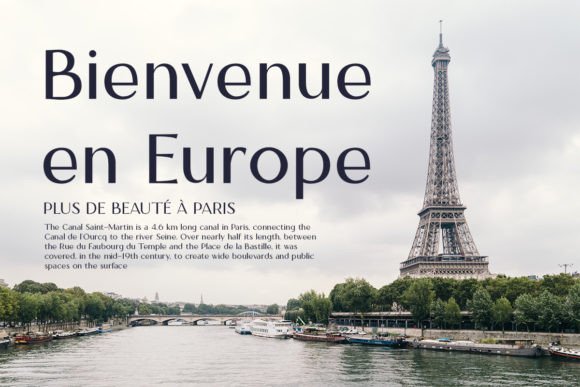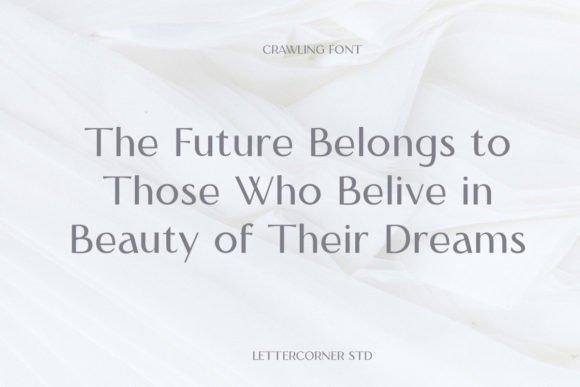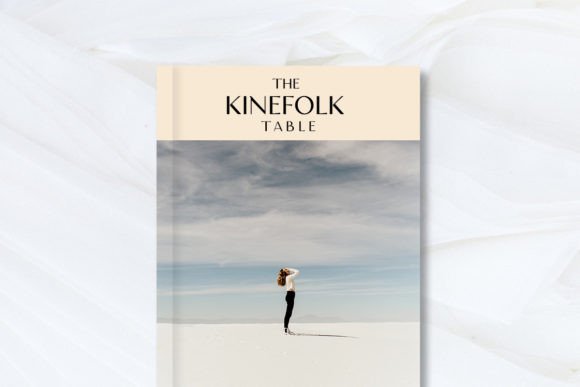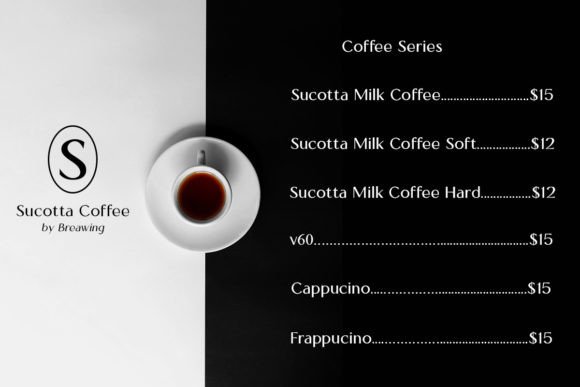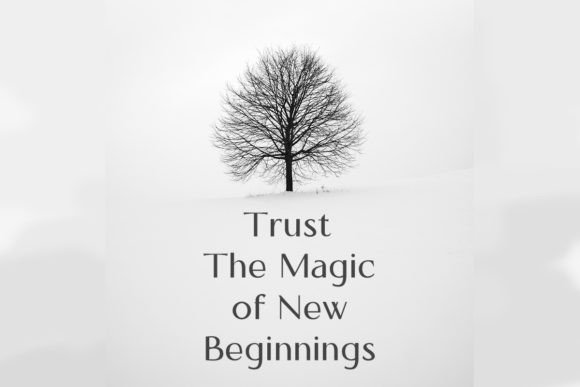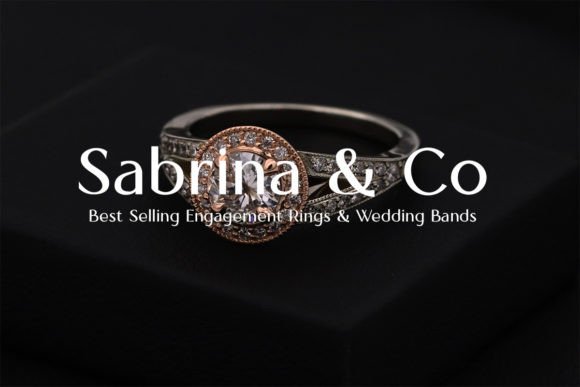
Crawling Font: Elevate Your Designs with Modern Chic
In the world of typography, fonts play a crucial role in conveying the tone and personality of a brand or design. For designers and crafters looking to add a touch of sophistication and elegance to their projects, the Crawling Font is an excellent choice. This modern and chic serif typeface is perfect for making a statement with headings, logos, branding, magazines, product packaging, and invitations.
What is Crawling Font?
Crawling Font is a carefully crafted serif typeface that boasts clean lines and smooth curves. Its unique design makes it an ideal choice for display purposes, adding an extra touch of class to any project. The font’s modern and chic aesthetic ensures that it can be used in a variety of contexts, from luxury branding to editorial design.
Key Features of Crawling Font
- Modern and Chic Design: Crawling Font’s sleek and sophisticated design makes it perfect for designers looking to create a lasting impression.
- Clean Lines and Smooth Curves: The font’s clean lines and smooth curves ensure that it remains legible and elegant, even at large sizes.
- Serif Typeface: The serif design adds a touch of tradition and sophistication, making it ideal for headings, logos, and branding.
- Versatile: Crawling Font can be used in a variety of contexts, including magazines, product packaging, and invitations.
Use Cases for Crawling Font
Crawling Font’s versatility makes it an excellent choice for a wide range of design projects. Here are some use cases where this font truly shines:
- Headings and Titles: Use Crawling Font to create bold and eye-catching headings that grab attention.
- Logo Design: The font’s modern and chic design makes it perfect for creating logos that exude sophistication and elegance.
- Branding: Crawling Font is an excellent choice for brands looking to create a luxurious and high-end image.
- Magazines and Editorials: The font’s clean lines and smooth curves make it ideal for editorial design, adding a touch of elegance to any publication.
- Product Packaging: Use Crawling Font to create eye-catching packaging that stands out on store shelves.
- Invitations: The font’s sophisticated design makes it perfect for creating elegant and luxurious invitations.
Tips for Using Crawling Font
To get the most out of Crawling Font, here are some tips to keep in mind:
- Use it as a Display Font: Crawling Font is designed to be used as a display font, so use it to create bold and eye-catching headings.
- Experiment with Font Sizes: The font’s clean lines and smooth curves ensure that it remains legible at large sizes, so don’t be afraid to experiment with different font sizes.
- Pair it with Other Fonts: Crawling Font can be paired with other fonts to create a unique and visually appealing design.
Crawling Font is a modern and chic serif typeface that is perfect for designers and crafters looking to add a touch of sophistication and elegance to their projects. With its clean lines, smooth curves, and versatile design, this font is ideal for a wide range of use cases, from headings and logos to branding and editorial design. Whether you’re looking to create a luxurious brand image or add a touch of class to your designs, Crawling Font is an excellent choice.